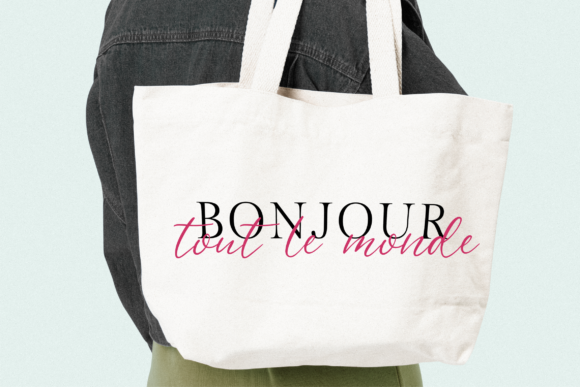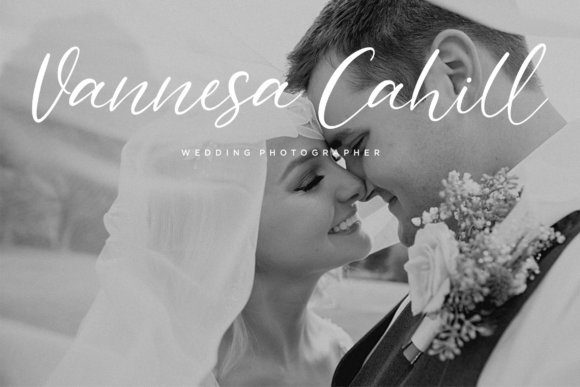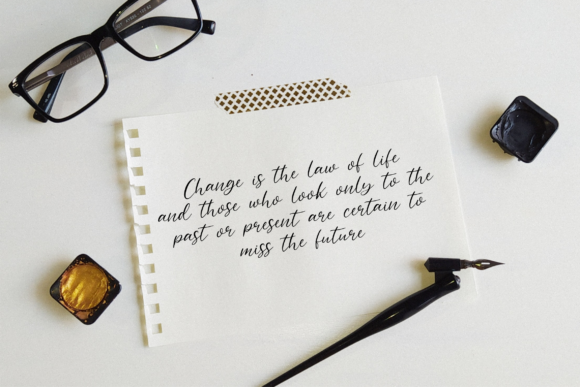
About Eallitapie Font
Eallitapie is a unique and elegant handwritten font. It looks beautiful on a variety of designs requiring a personalized style, such as wedding invitations, thank you cards, weddings, greeting cards, logos and so on.